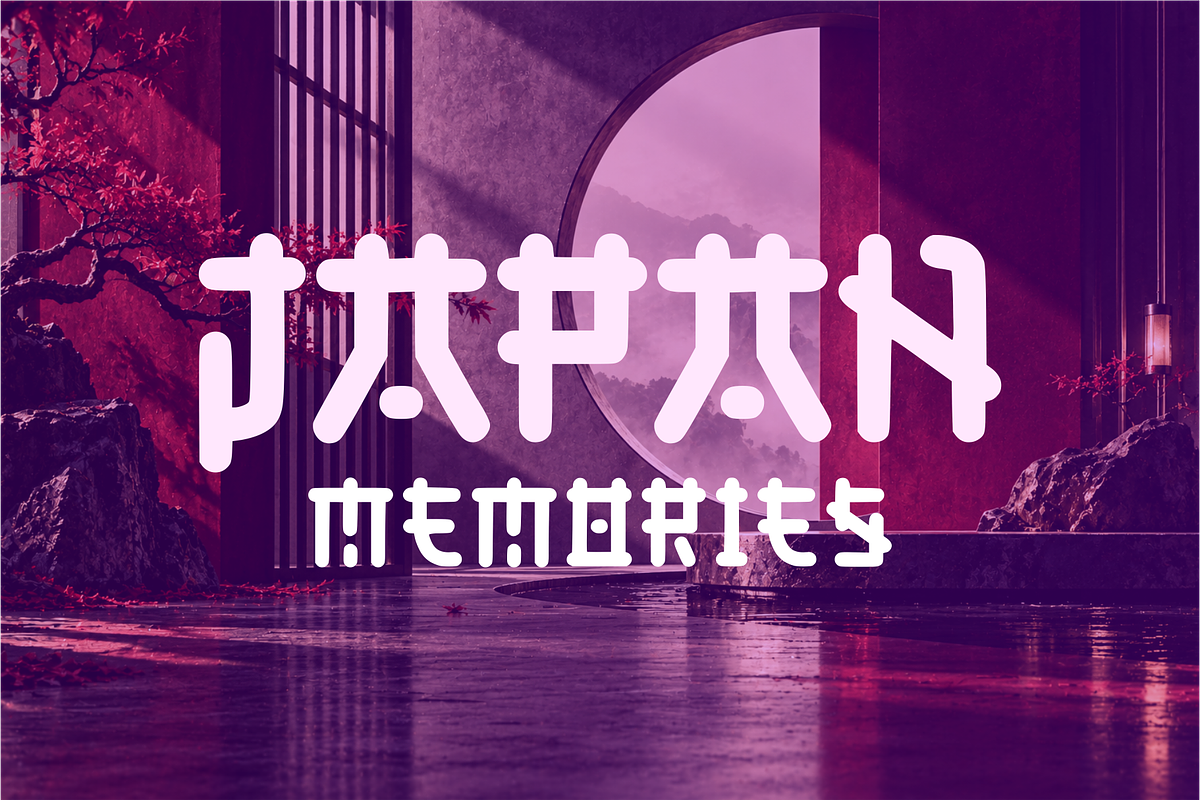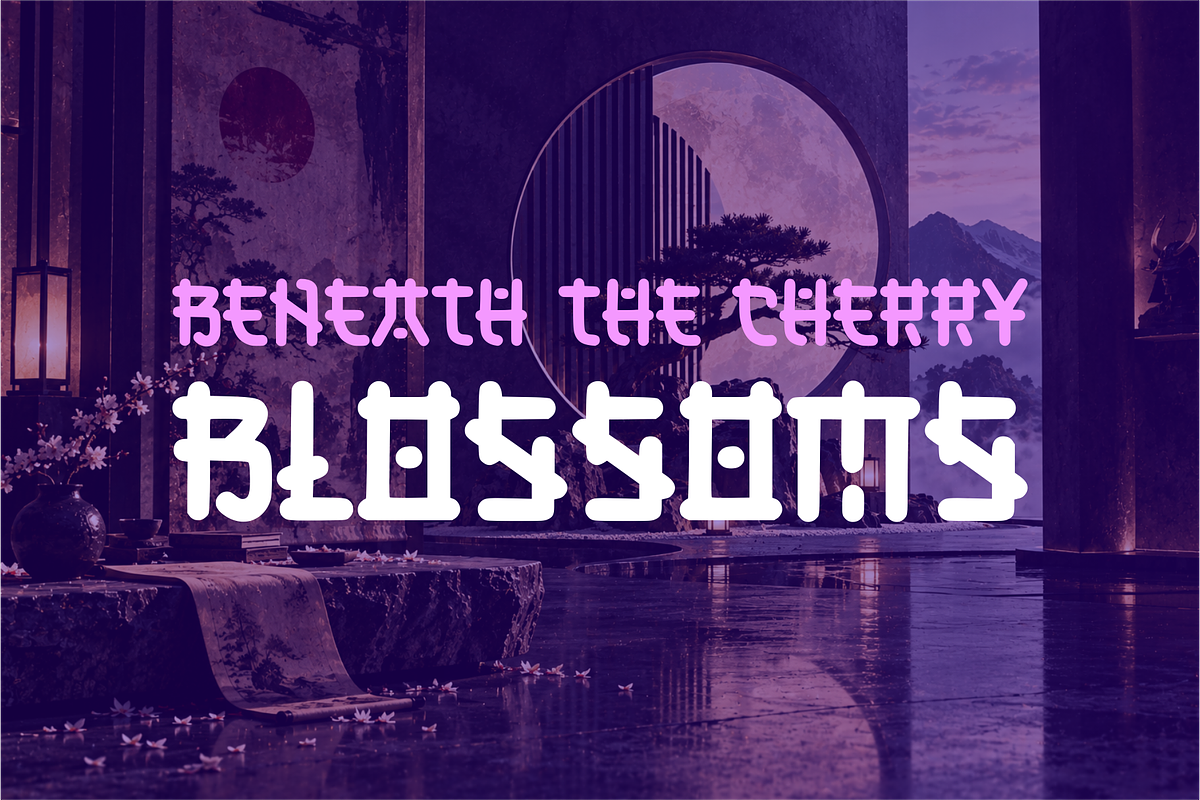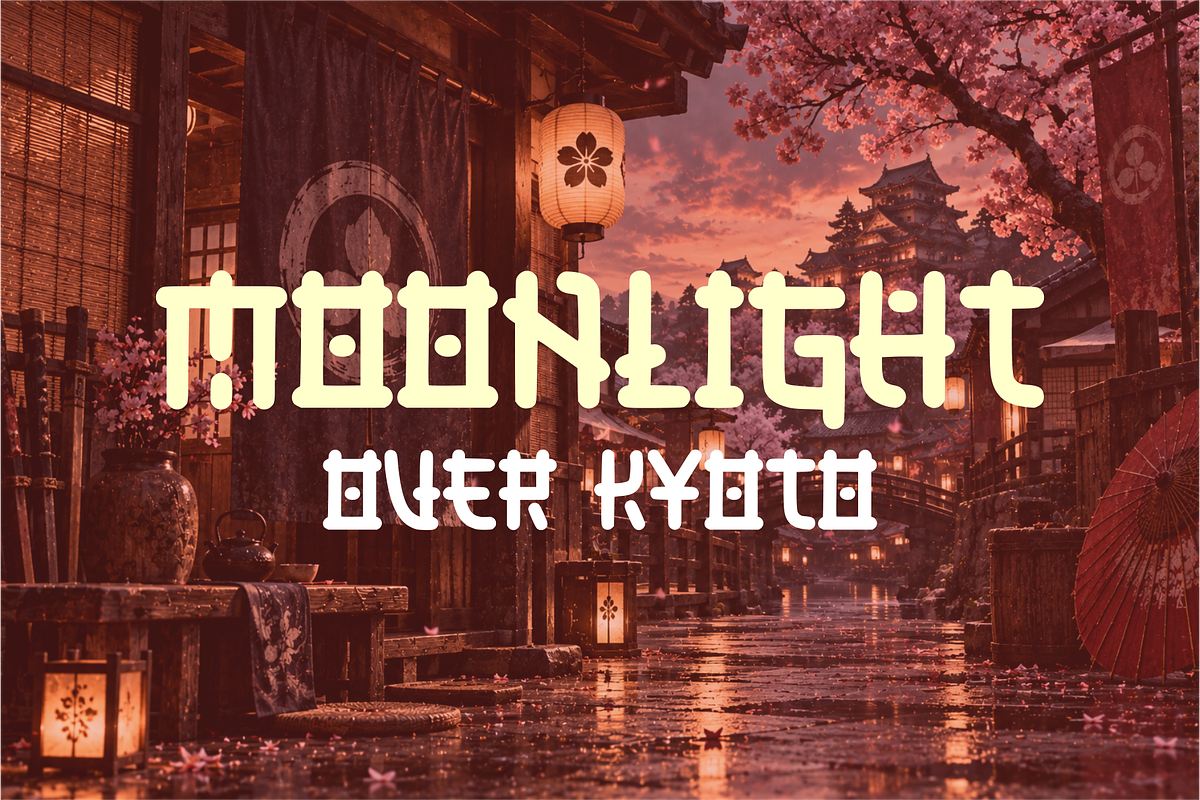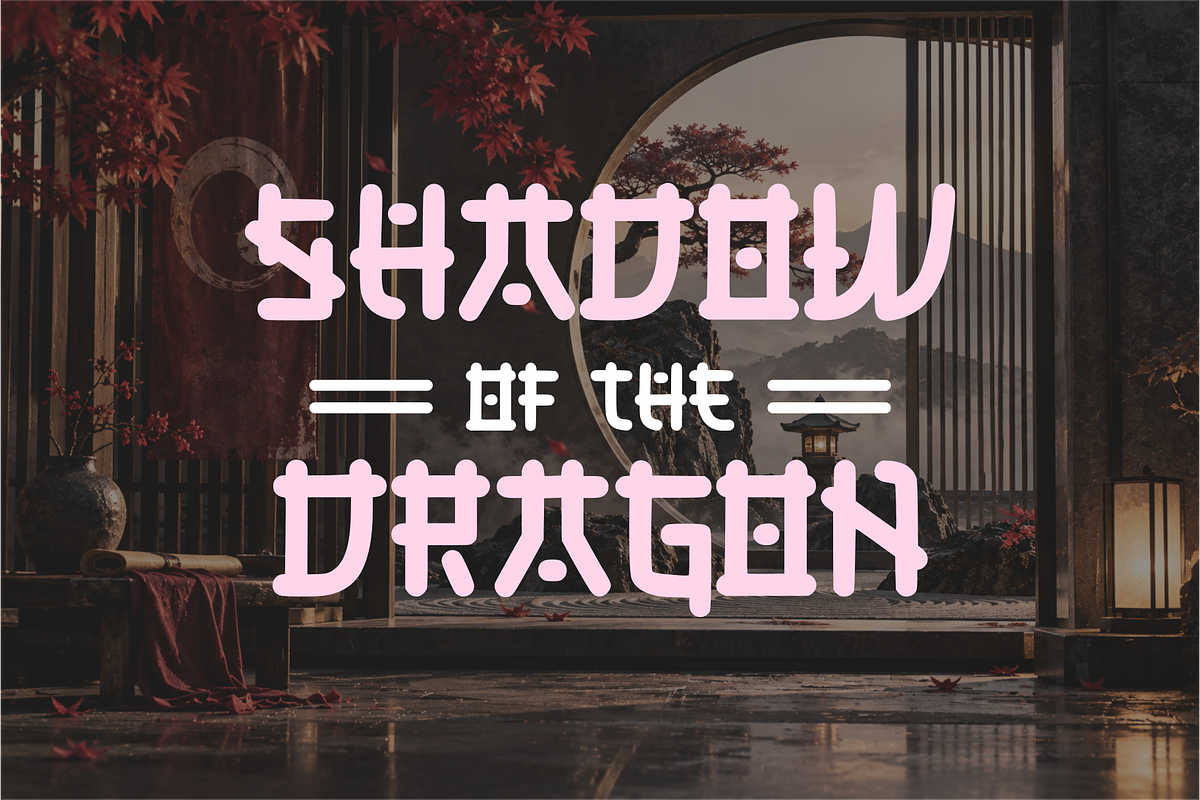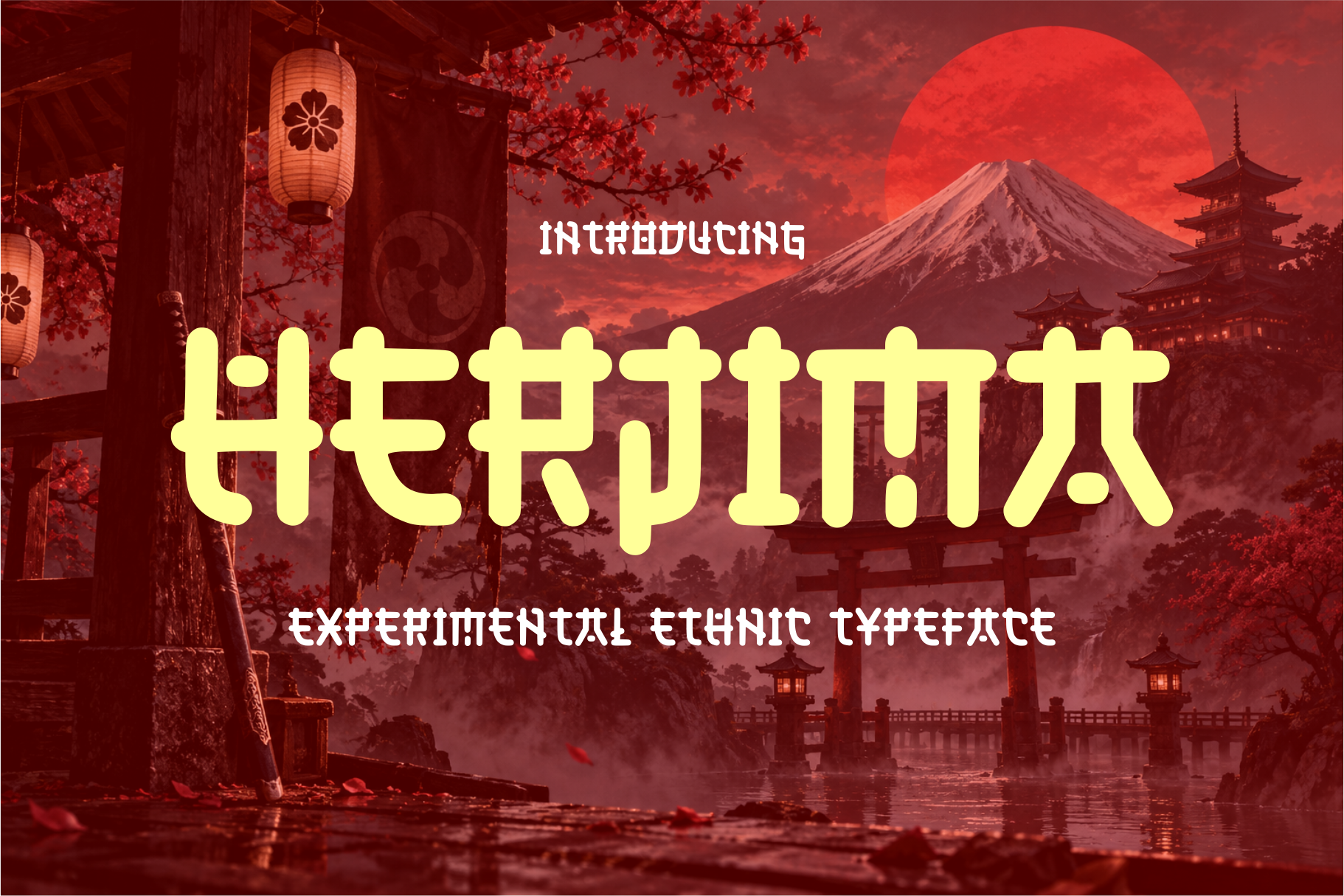
HERJIMA Experimental Ethnic Typeface
HERJIMA — Experimental Ethnic Typeface
HERJIMA is a bold and distinctive experimental ethnic display typeface inspired by traditional Asian and Japanese-inspired visual aesthetics. Its unusual geometric construction, rounded terminals, strong vertical forms, and decorative details create a unique balance between heritage-inspired character and contemporary experimental design.
Designed primarily for attention-grabbing headlines and large-scale typography, HERJIMA brings a mysterious, artistic, and cultural atmosphere to any composition. Its unconventional letterforms make it especially suitable for projects that need a strong visual identity with an exotic and modern edge.
HERJIMA is perfect for:
Japanese & Asian-inspired branding
Cultural and heritage projects
Poster and editorial design
Album & music artwork
Streetwear and fashion graphics
Logo and title design
Packaging
Festival and event posters
Gaming and entertainment graphics
Experimental typography projects
With its bold silhouette and ethnic-inspired experimental structure, HERJIMA is made to stand out—turning ordinary words into powerful visual statements.